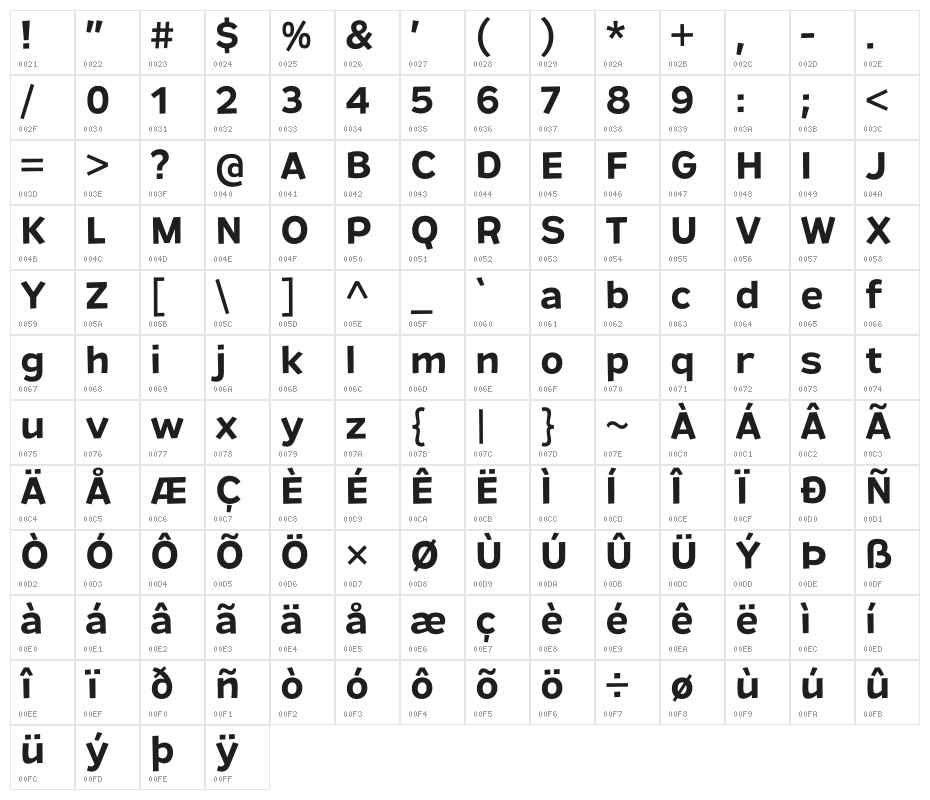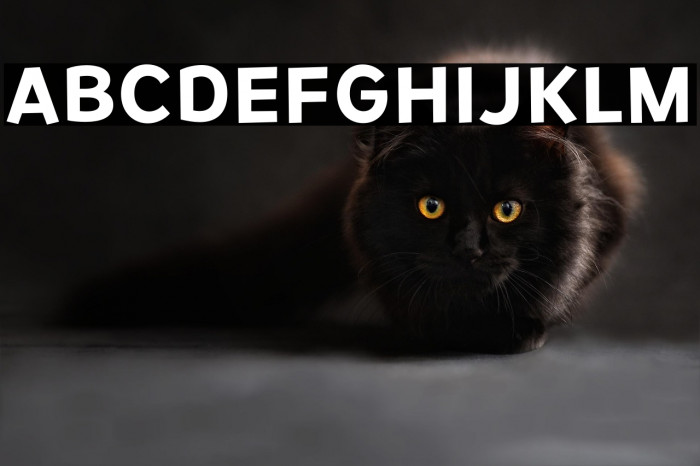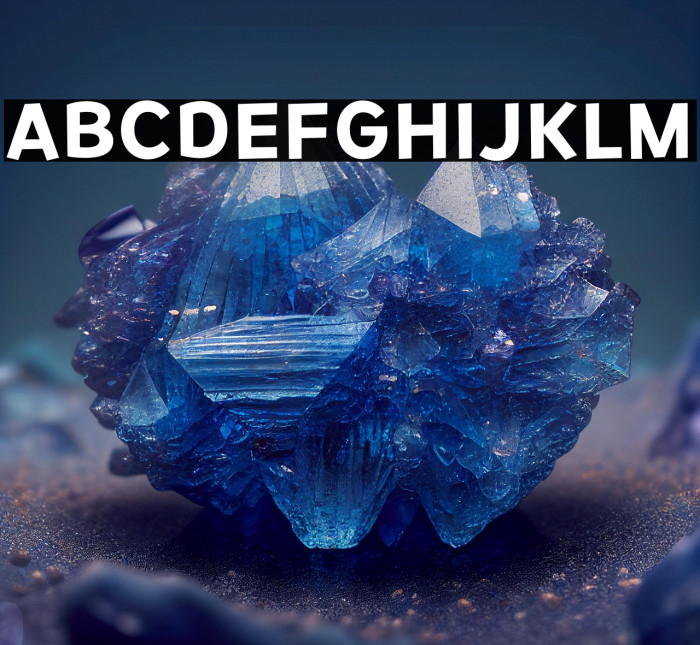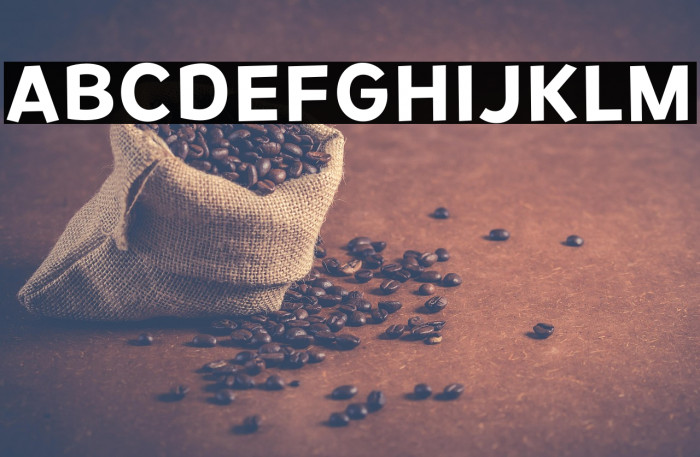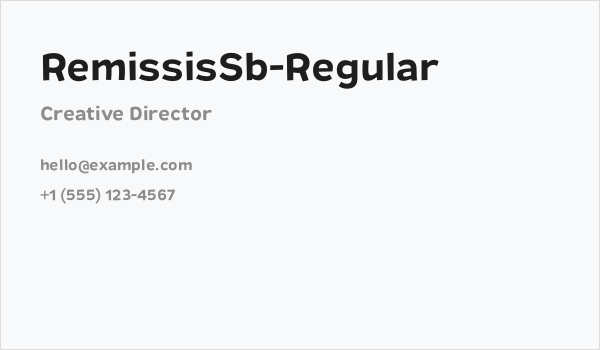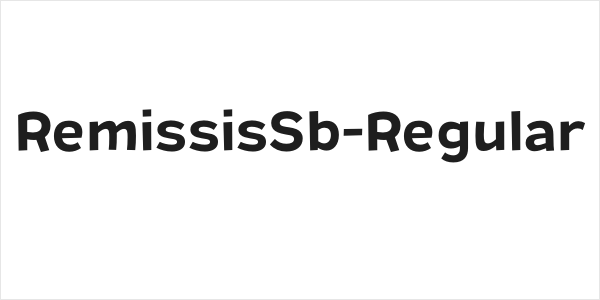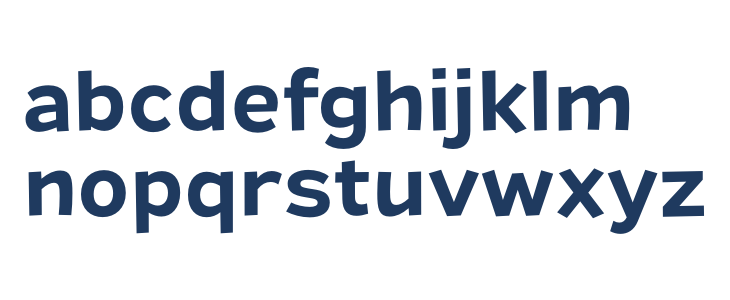
RemissisSb-Regular Font
RemissisSb-Regular Description
This typeface features a bold and modern design with clean, geometric lines. The characters are well-balanced, offering a strong presence that is both professional and approachable. The uppercase letters are uniform in height, while the lowercase letters maintain a consistent baseline, enhancing readability. The numerals are clear and distinct, making them suitable for various applications. Special characters are included, providing versatility for different contexts. The overall design is sleek and contemporary, making it ideal for digital and print media.
| Use Case | Headlines, Logos, Digital Media |
| Proposed Projects | Ideal for branding, advertising, web design, and editorial projects. |